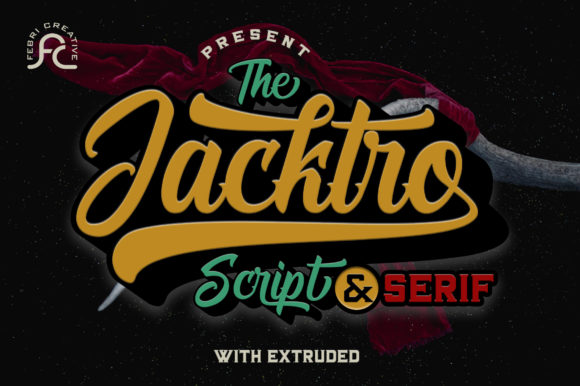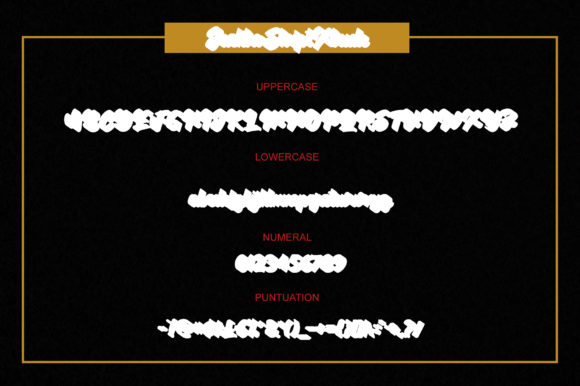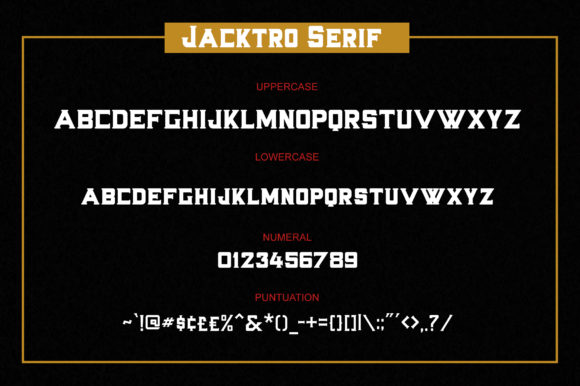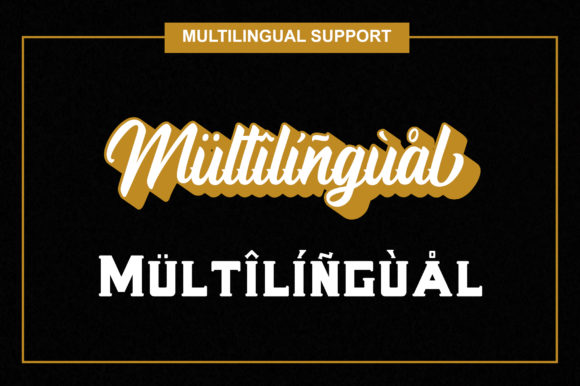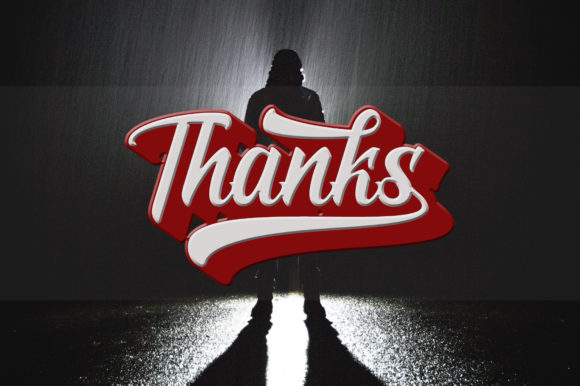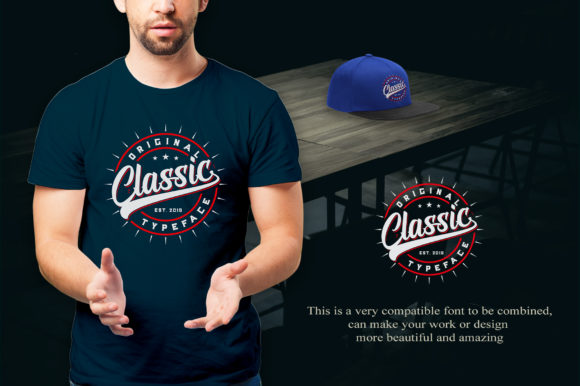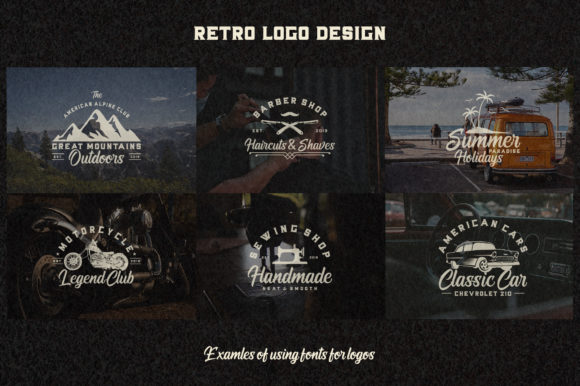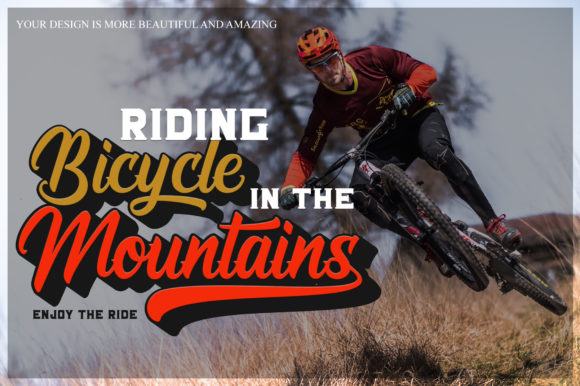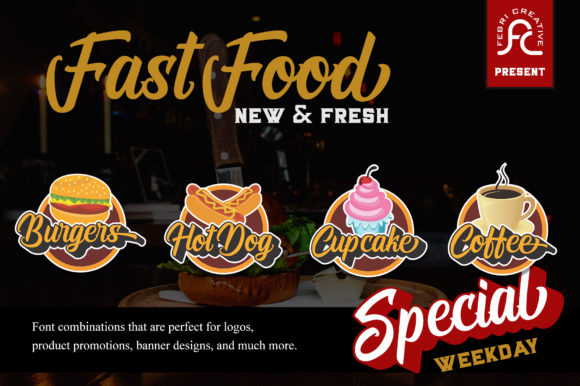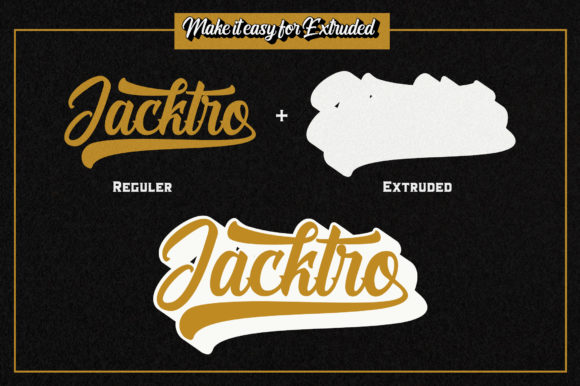
HomeScript FontsJacktro Font Script Fonts Jacktro Font FacebookXPinterestWhatsApp Jacktro Font Poster 2 Jacktro Font Poster 3 Jacktro Font Poster 4 Jacktro Font Poster 5 Jacktro Font Poster 6 Jacktro Font Poster 7 Jacktro Font Poster 8 Jacktro Font Poster 9 Jacktro Font Poster 10 Jacktro Font Poster 11 Jacktro Font Poster 12 Jacktro Font Poster 13 About Jacktro Font Jacktro is a modern and cool handwritten font with a unique style. Get inspired by its cool feel. DOWNLOAD NOW People also explored Stay Amsterdam Font Sartadi Script Font Simpleoak Font Blaytina Font Gibran Font K26 Sakura Font Excitedly Font Bucky Font Cardova Font 411 0 TagsJacktro Font Previous articleBeauty Gadish FontNext articleFoustayn Font LEAVE A REPLY Cancel reply Comment: Please enter your comment! Name:* Please enter your name here Email:* You have entered an incorrect email address! Please enter your email address here Website: Save my name, email, and website in this browser for the next time I comment. Personal Use Free Bamboomoe Personal Use Free Read more about this font Child Writing Free Personal Use Free Read more about this font Tomatoes Personal Use Free Read more about this font Gratisan Personal Use Free Read more about this font BLOG Best Fonts for T-Shirt Design – Top 2025 Picks In 2025, t-shirt design has become more than just fashion—it's a form of self-expression. Whether you're... To increase your work productivity, choose the most readable fonts. Fonts That Capture the Spirit of New York City Top 7 Google Fonts Alternatives for Faster and Privacy-Friendly Web Design (2025)